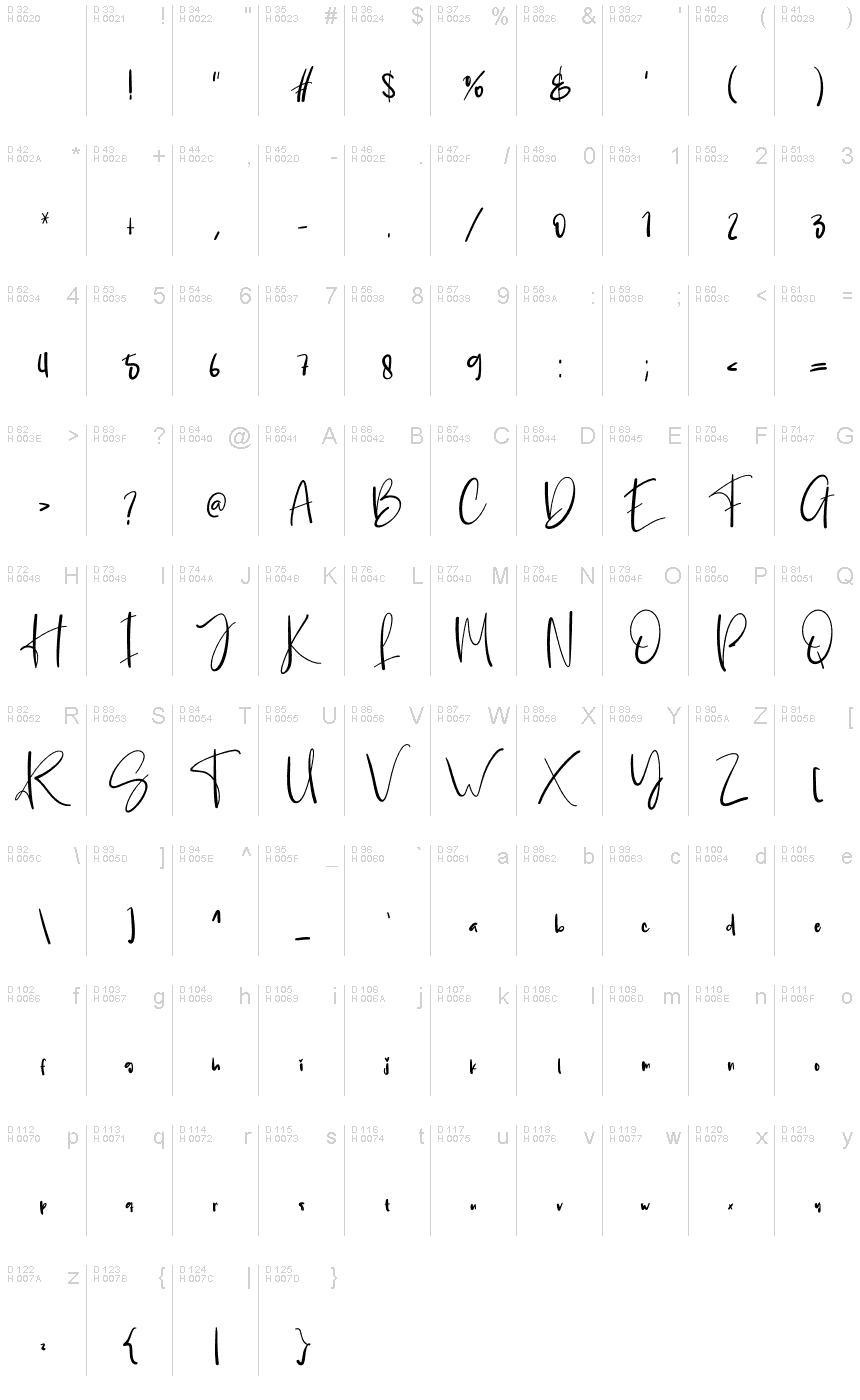
Ribbon
Ribbon, designed by Scratchones, is a captivating handwritten font that exudes elegance and grace. With its light weight, this font adds a touch of sophistication to any project.
Its flowing lines and delicate curves make it perfect for wedding invitations, fashion blogs, or romantic novels. Whether you're designing a logo for a high-end boutique or creating an eye-catching poster for an art exhibit, Ribbon is the ideal choice to add a personal and artistic touch.
Let Ribbon be your go-to font for projects that demand refinement and creativity.
The latest style letters are perfect for wall displays, wedding invitations, social media post logos, advertisements, product packaging, product designs, labels, photography, watermarks, invitations, stationery, and any project that requires taste handwriting.